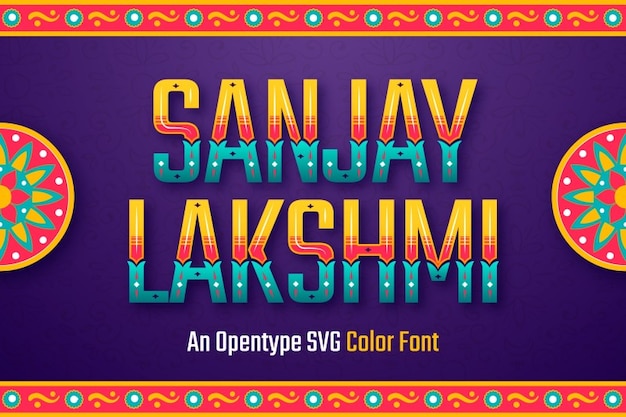
Sanjay Lakshmi Font
"Sanjay Lakshmi" is a culturally rich font that captures the essence of Indian heritage. Inspired by traditional Hindi script, it blends ethnic design elements with modern typography. Its flowing curves and ornamental details evoke the vibrant spirit of India, making it ideal for projects that celebrate Indian culture and identity